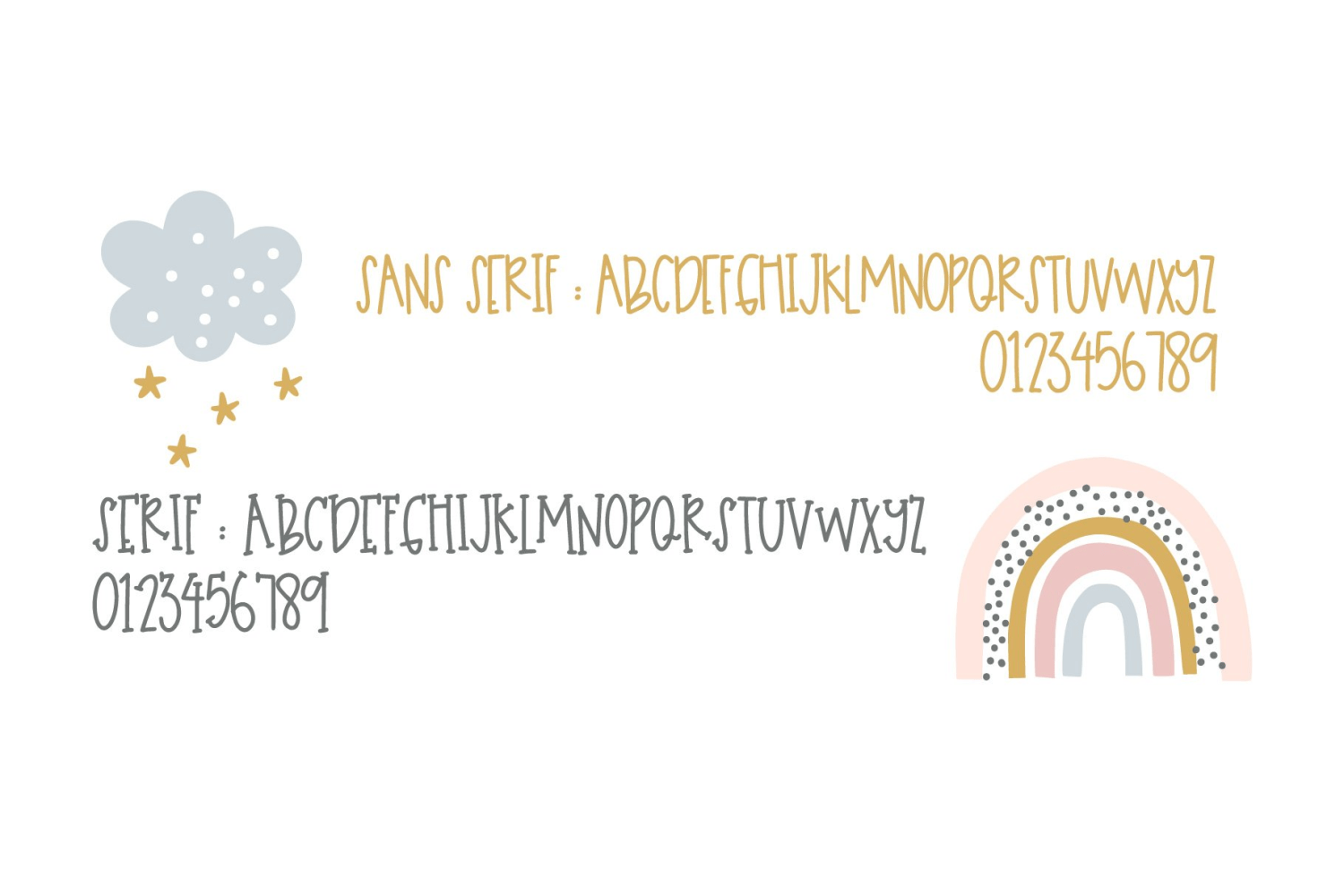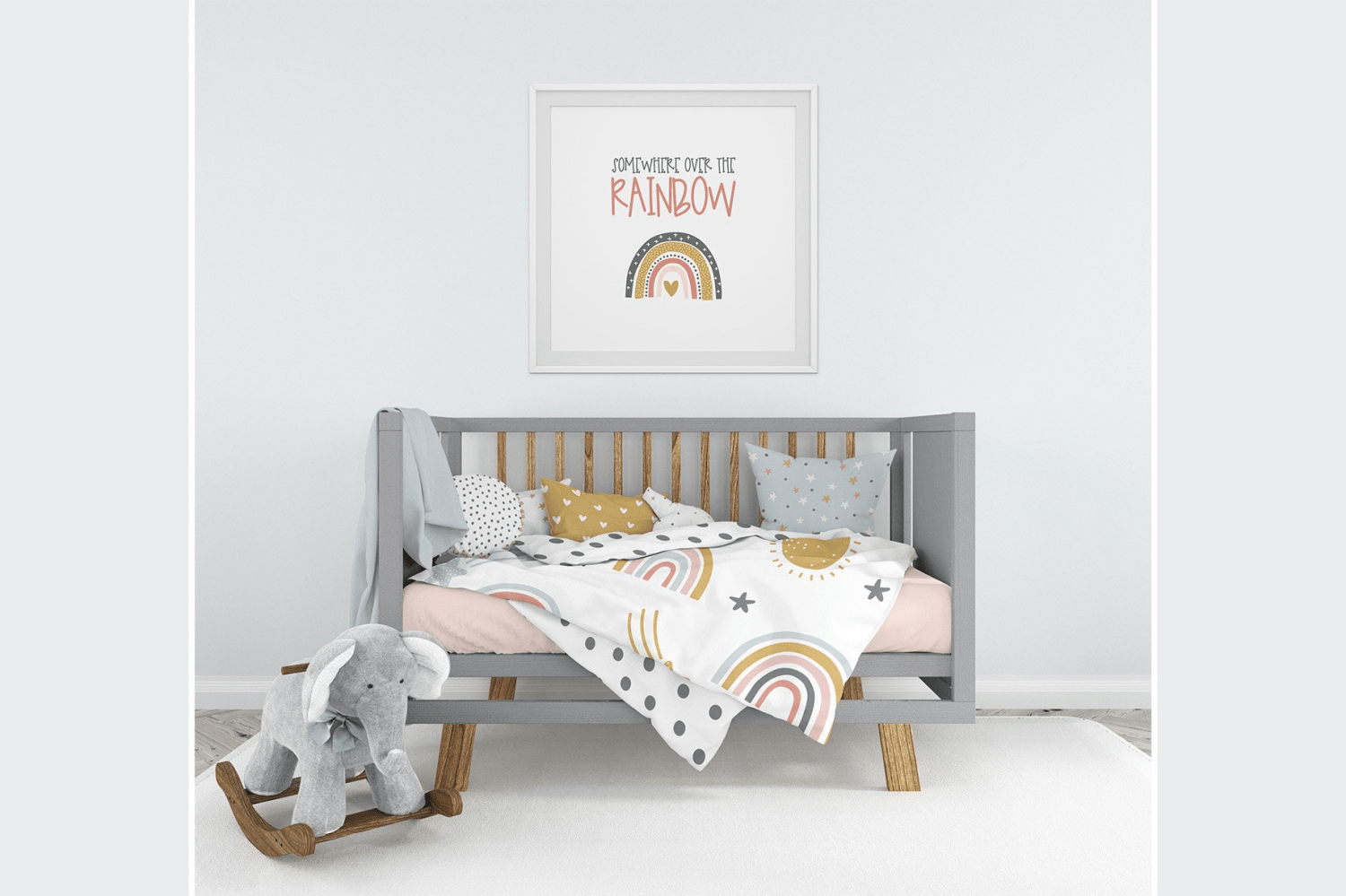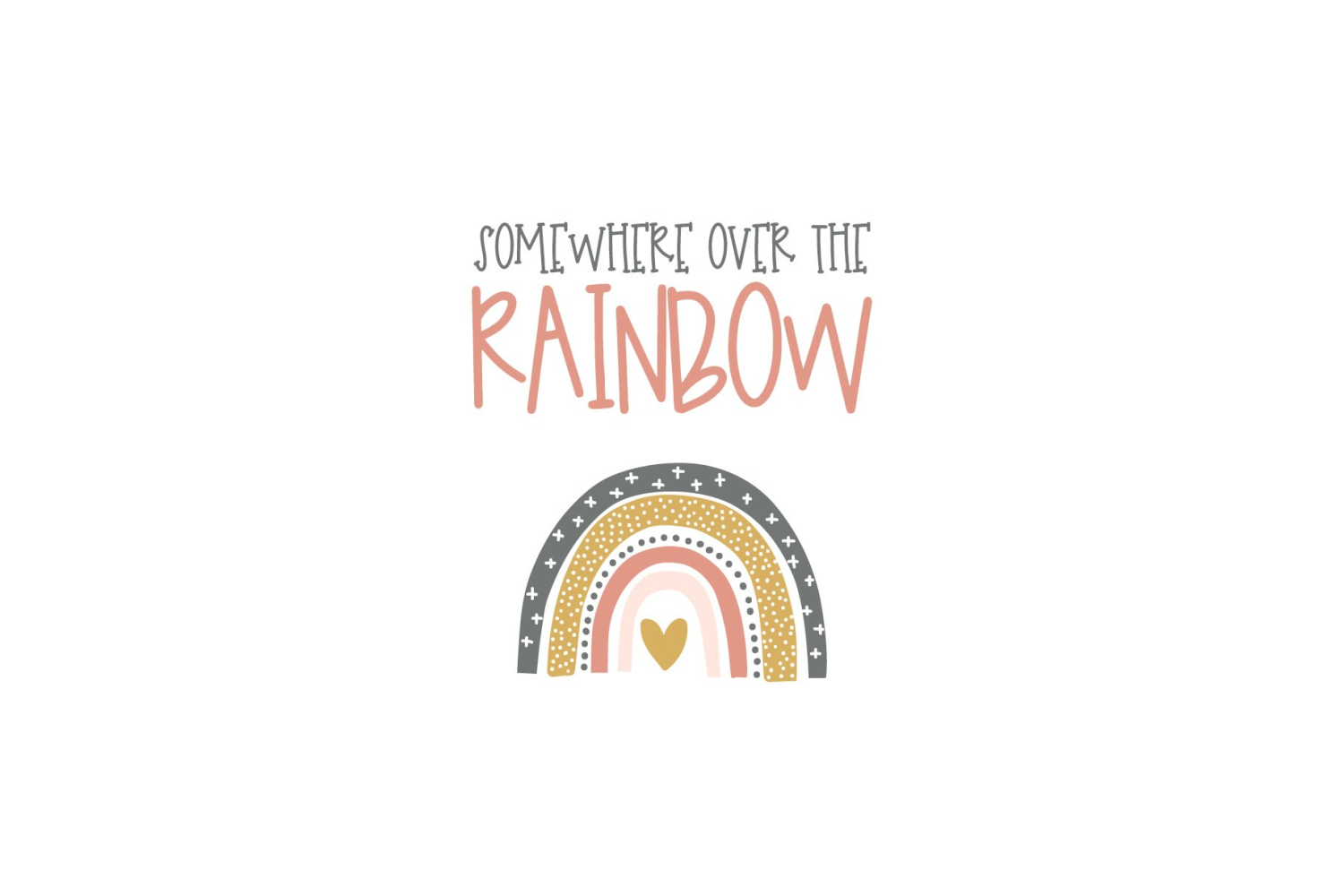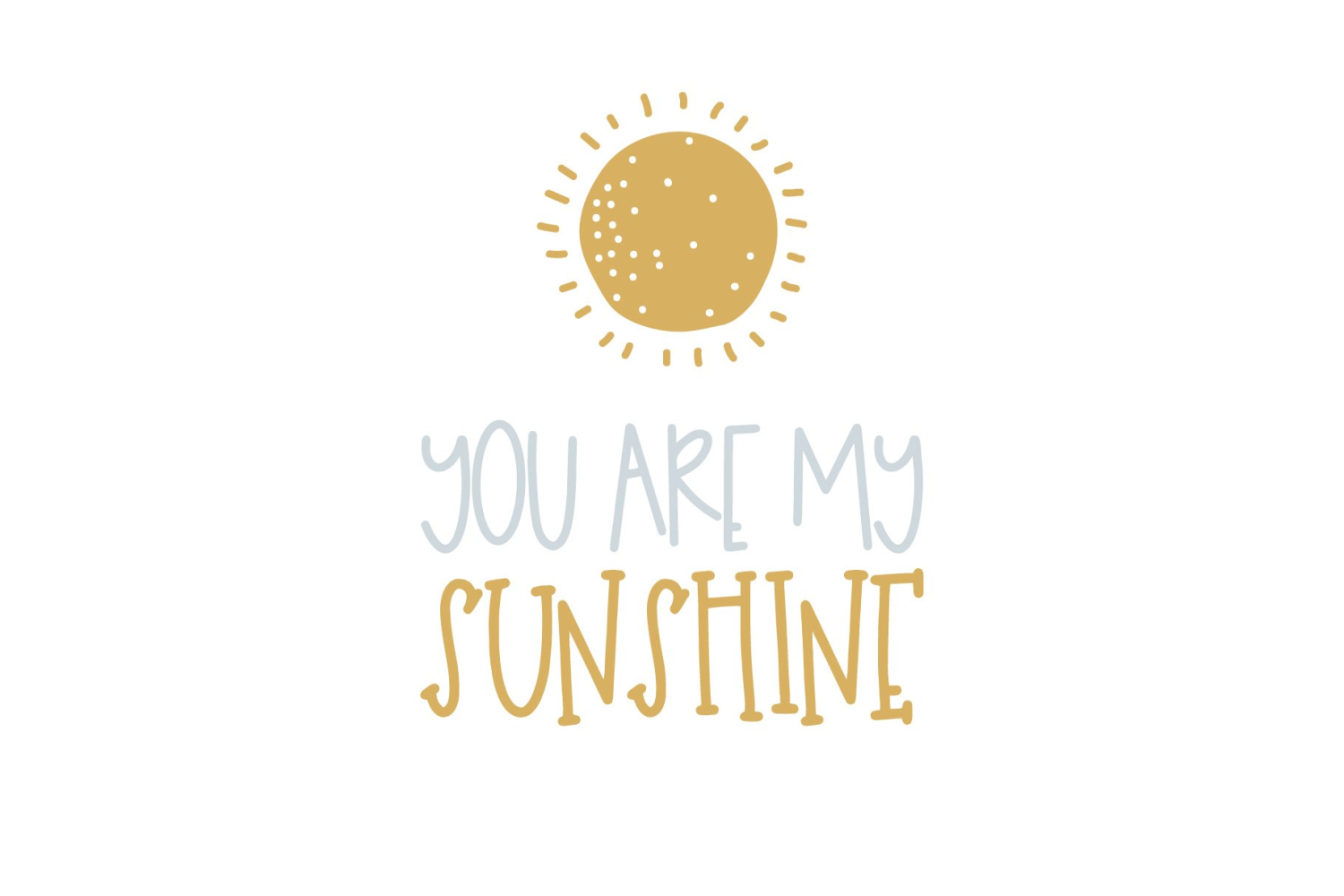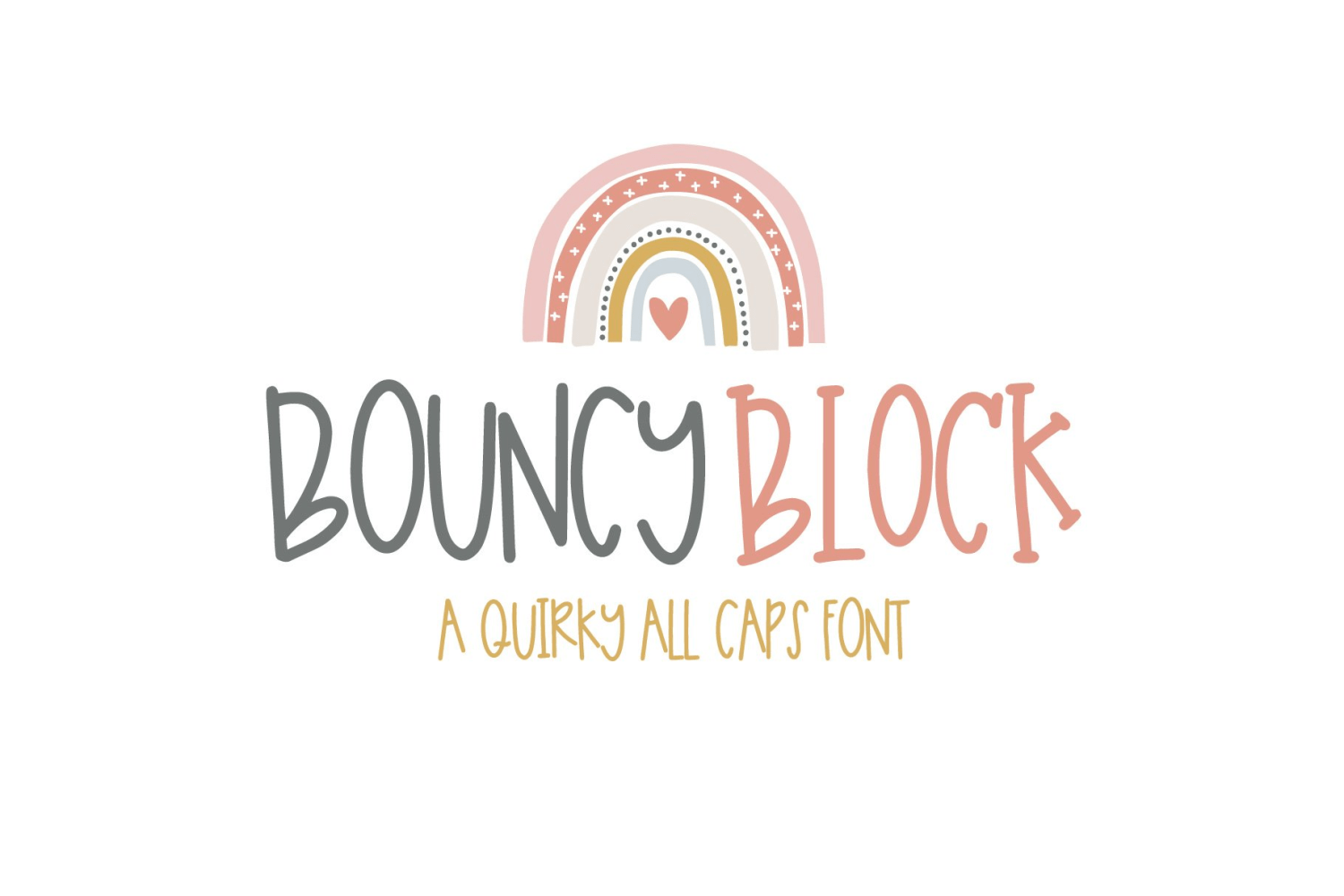
HomeFont BrosSans SerifBouncy Block Sans SerifWacky Bouncy Block FacebookXPinterestWhatsApp 1 of 7 About Bouncy Block Quirky and New Sans and Serif font from OTSS! Perfect for nursery graphics, tee designs, holiday or greeting cards and so much more!  DOWNLOAD NOW People also explored Shatoshi Signature Font Shapely Arielle Font Daisy Garden Font Eternity Font Daisy Garden Font Minnimallisstic Font Brathas Font Glow Monogram Font 342 0 TagsBouncy Block Font Previous articleOctin SportsNext articleMagiona Display LEAVE A REPLY Cancel reply Comment: Please enter your comment! Name:* Please enter your name here Email:* You have entered an incorrect email address! Please enter your email address here Website: Save my name, email, and website in this browser for the next time I comment. Personal Use Free Stone Garden Personal Use Free Read more about this font Hello Holiday Personal Use Free Read more about this font Orchid Personal Use Free Read more about this font Rumaniaya Personal Use Free Read more about this font BLOG How to Cut Any Font on Cricut: Convert a Font to SVG (Free) Turn any font into a clean SVG so it cuts crisp on Cricut - a quick 3-step workflow using a free font-to-SVG tool. 5 Fonts That Will Dominate Design Trends in 2026 Elegant Wedding Invitation Fonts – Handwritten & Script Fonts Best Fonts for YouTube Videos: Make Your Thumbnails Stand Out